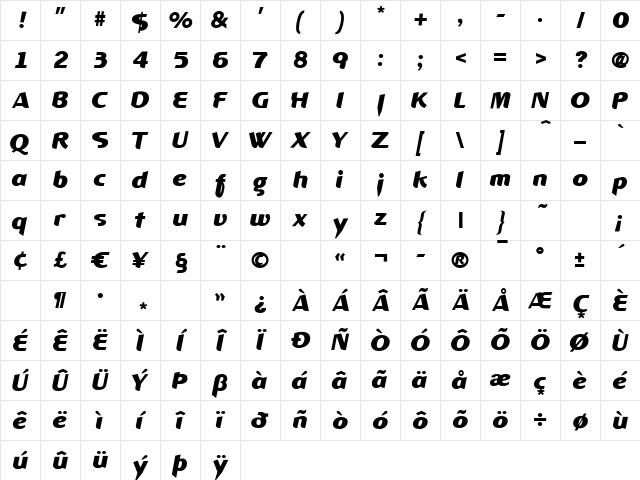
Complete XYPERFORMULAIC Regular glyph index. Displaying only characters natively supported by XYPERFORMULAIC Regular font.
XYPERFORMULAIC is a composed and adaptable typeface that performs quietly and consistently across a wide range of design contexts.